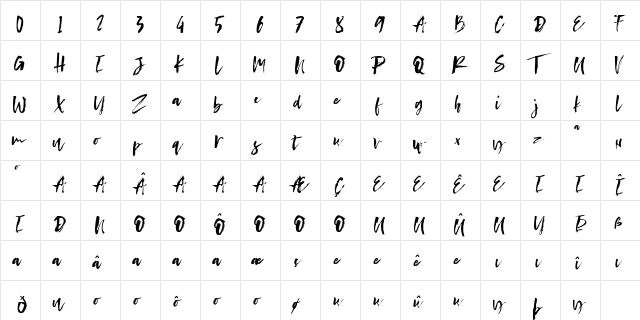
Conundrum Regular
| Designer | Eko Kurniawan | Letteratom |
Design Context for Conundrum Typeface
Conundrum is a composed and adaptable typeface that performs quietly and consistently across a wide range of design contexts.